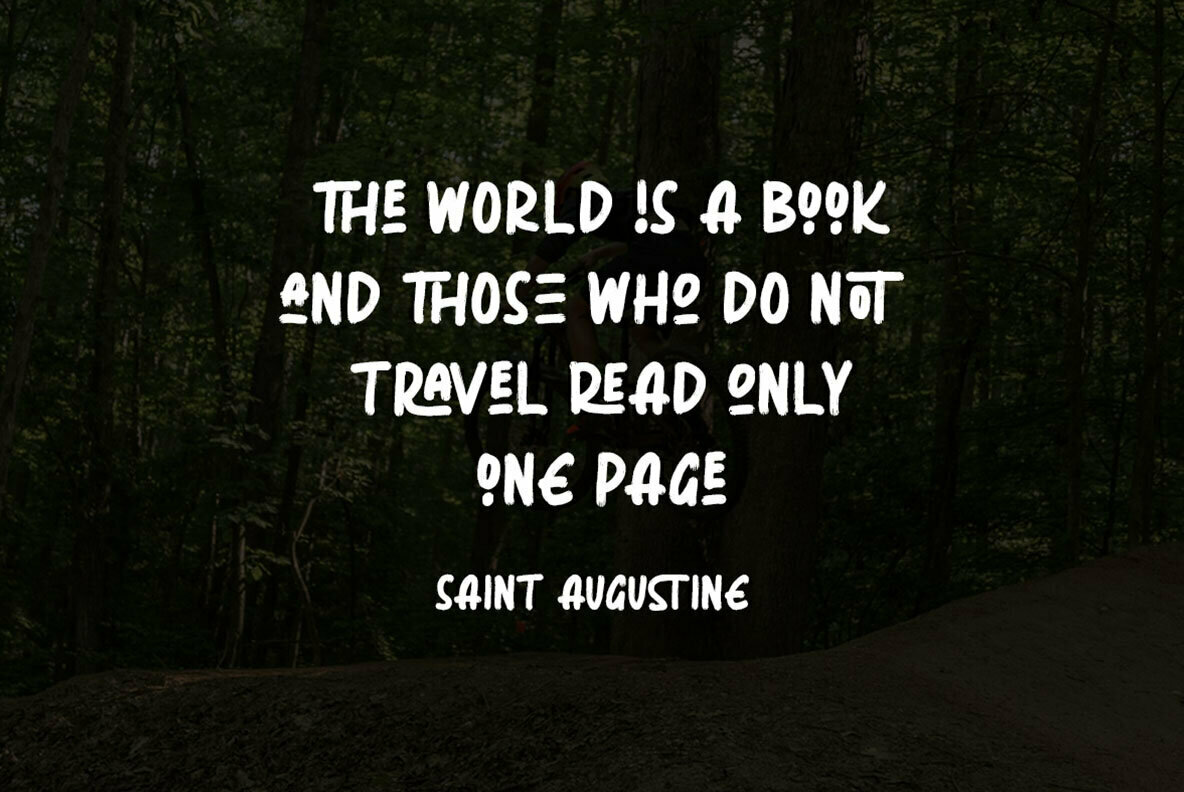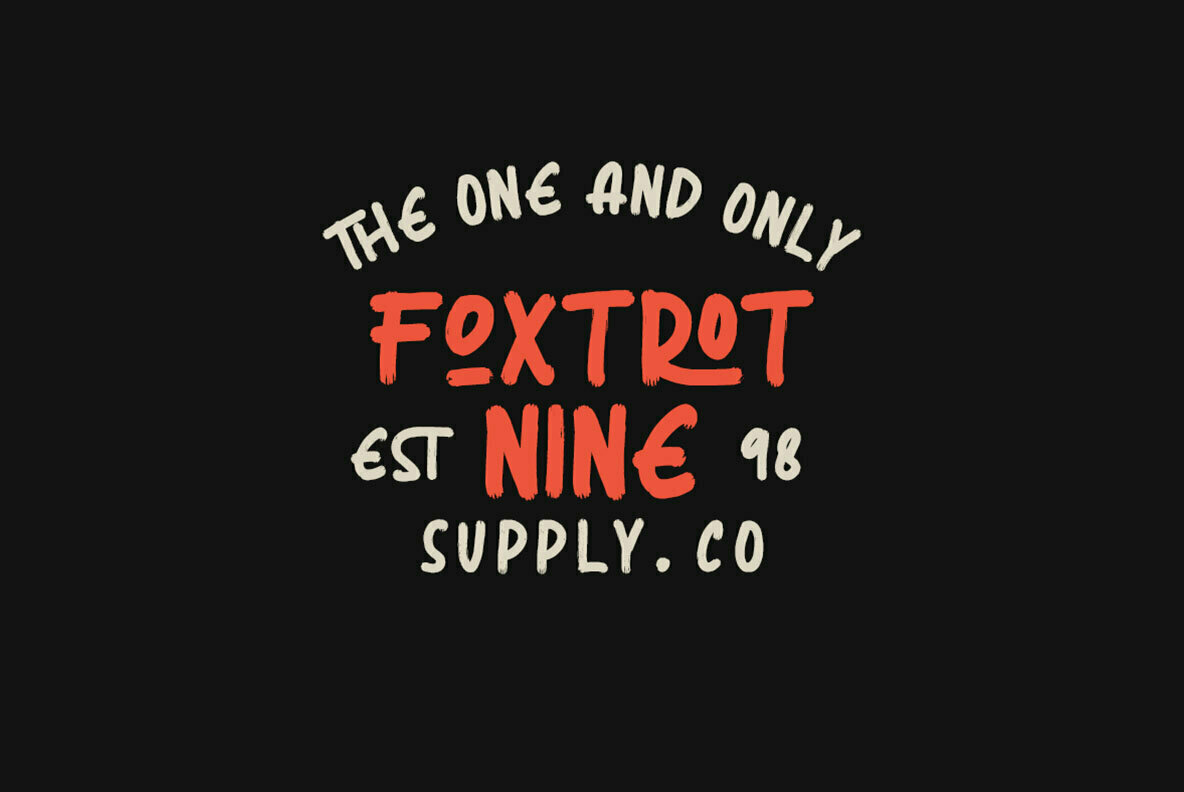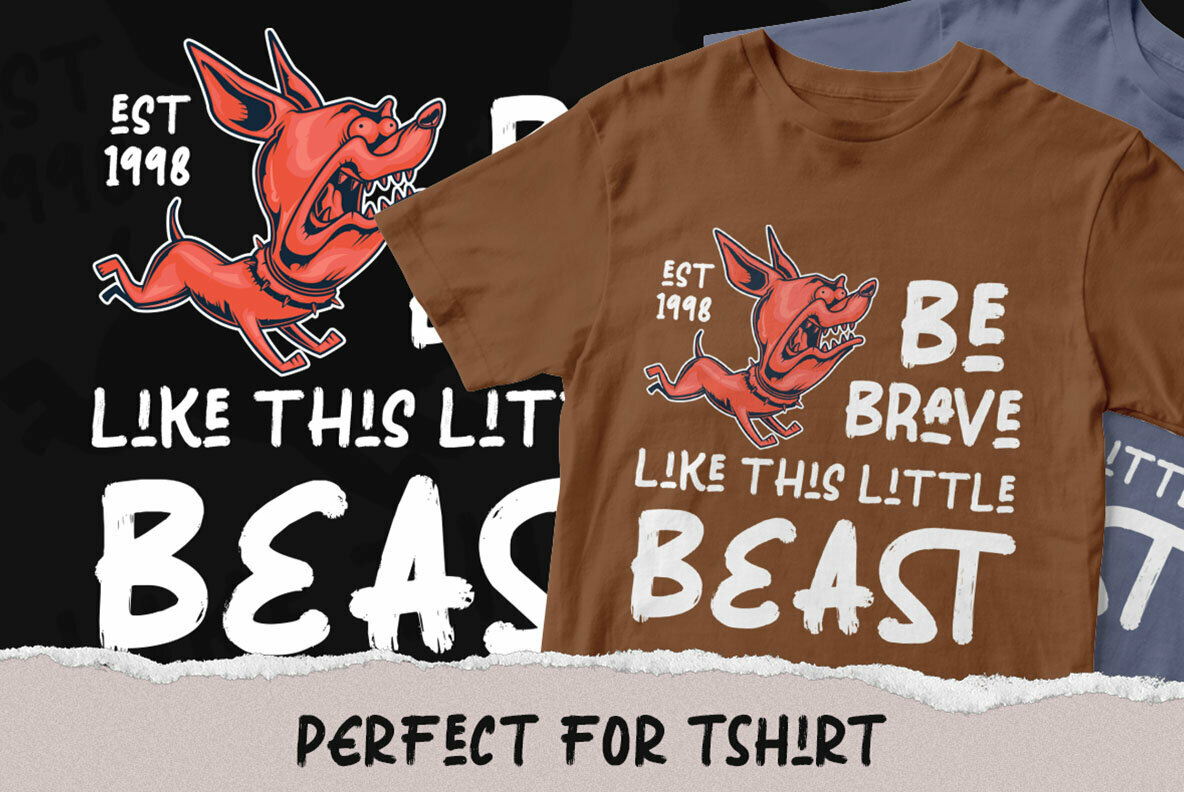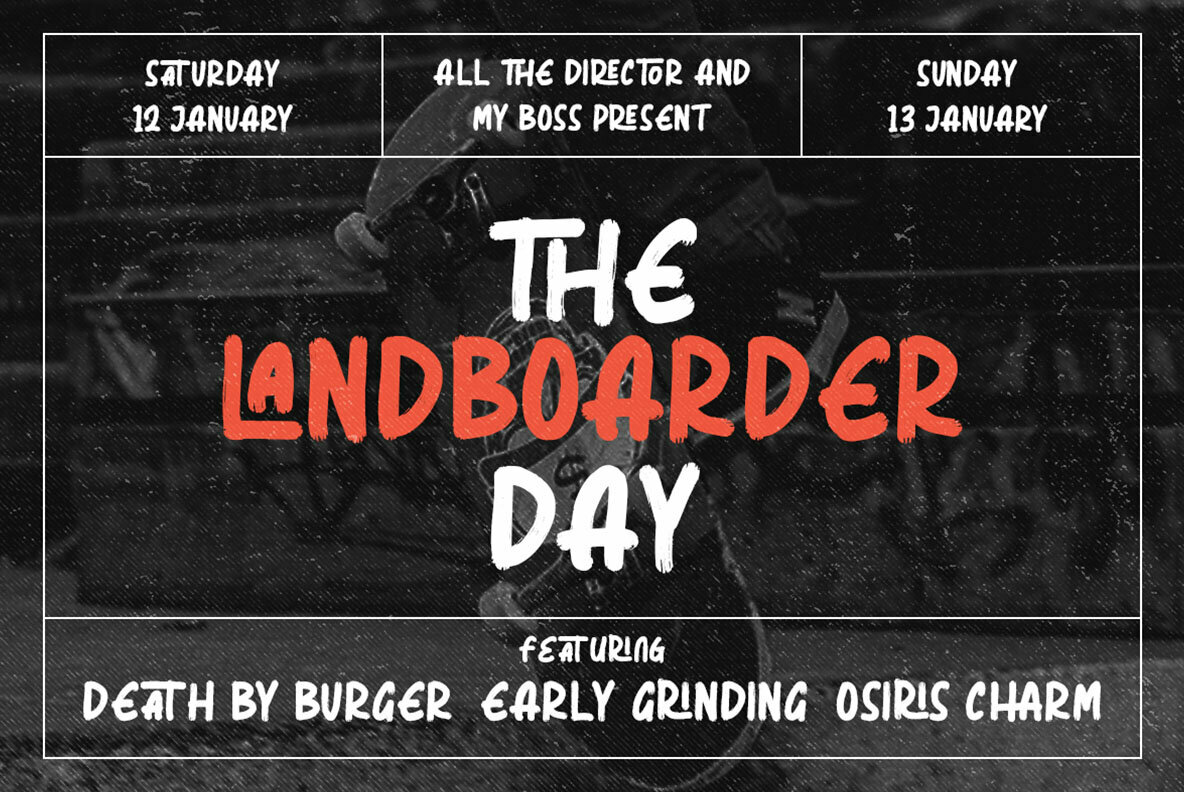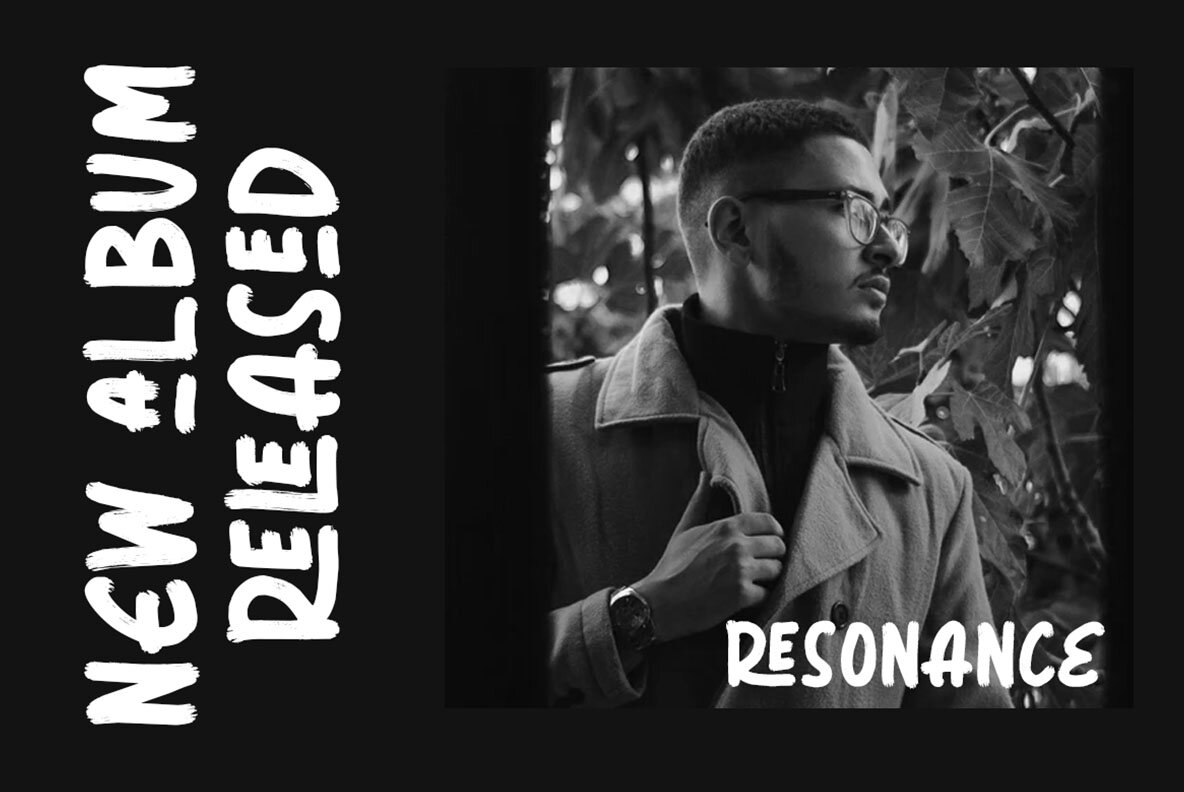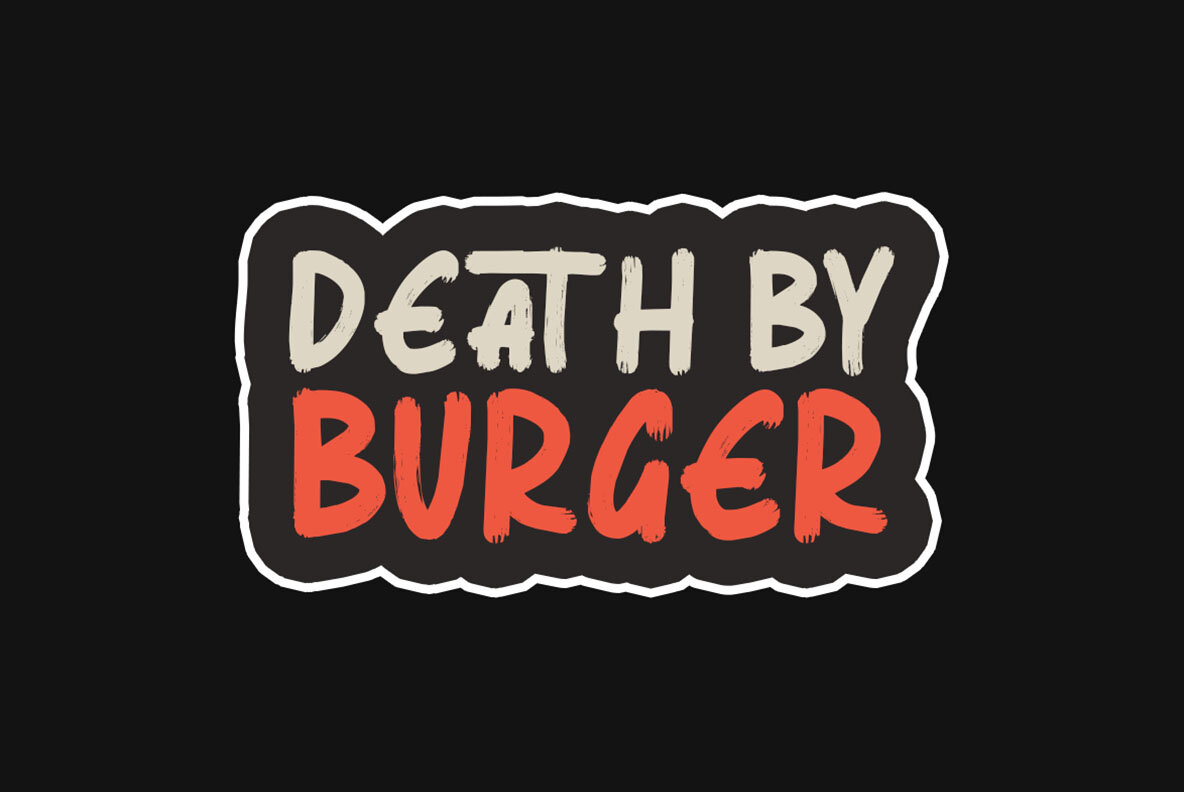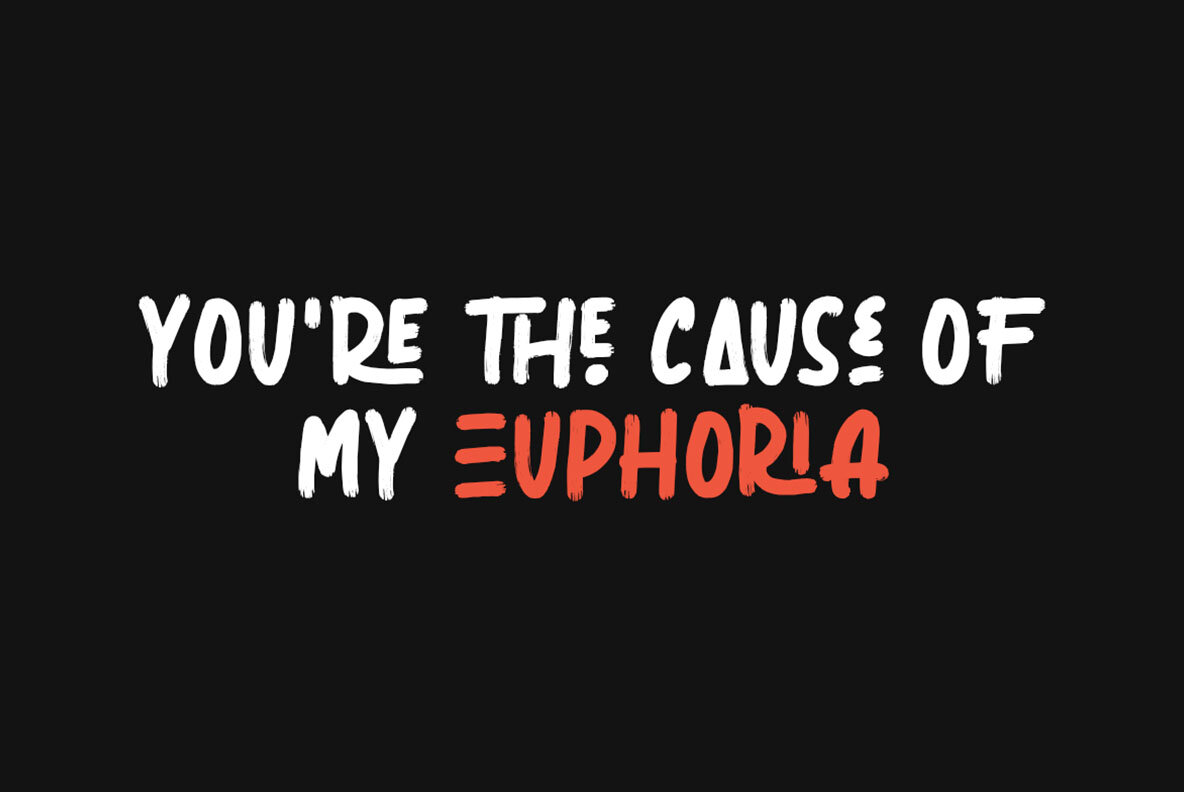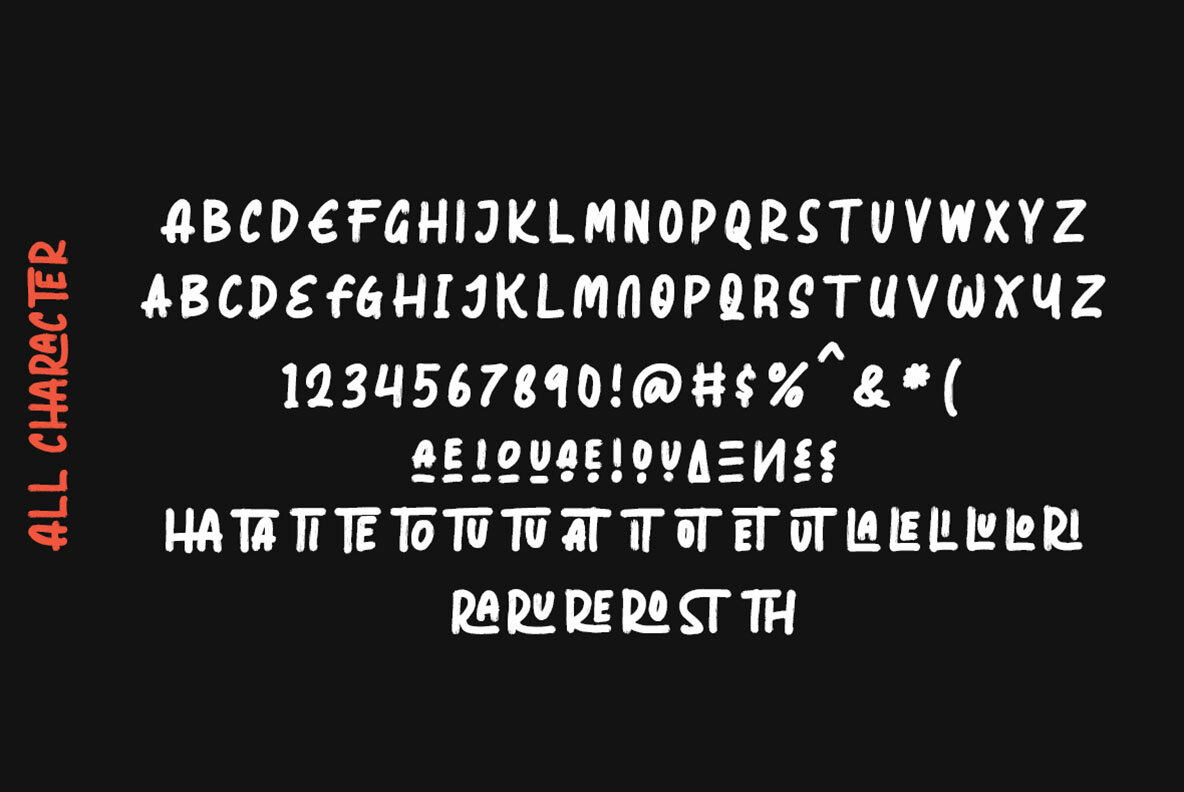
Stereography Font
Stereography
Stereography, crafted by Rillatype, stands out as a handwritten ligature brush typeface that combines artistic flair with practicality. Designed to captivate, this typeface features distinctive ligatures and a rich brush texture, elevating any creative project. Complementing these attributes, Stereography includes alternate characters to provide additional visual appeal. Ideal for a wide range of applications, this typeface enhances logos, headlines, t-shirts, branding, and packaging with its unique style. For optimum results, utilize software like Adobe apps or Corel Draw to take full advantage of OpenType features and glyph variations provided by Stereography.Stereography: Expressive Handwritten Brush Typeface